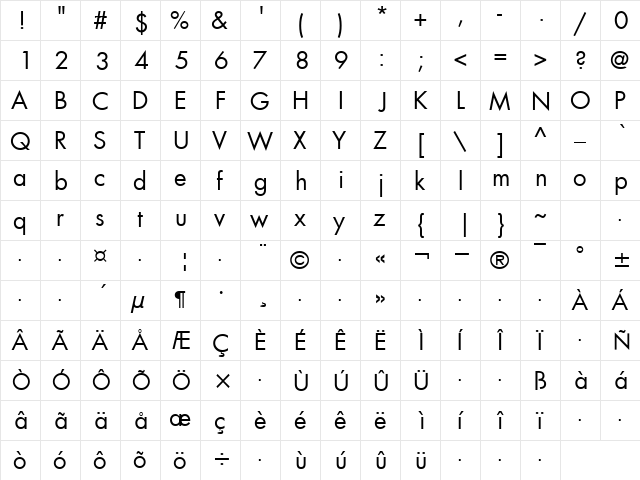
Modern Regular
Design Context for Modern Typeface
Modern takes a measured approach to typography — its balanced proportions and neutral character make it a reliable workhorse for both digital and print work.